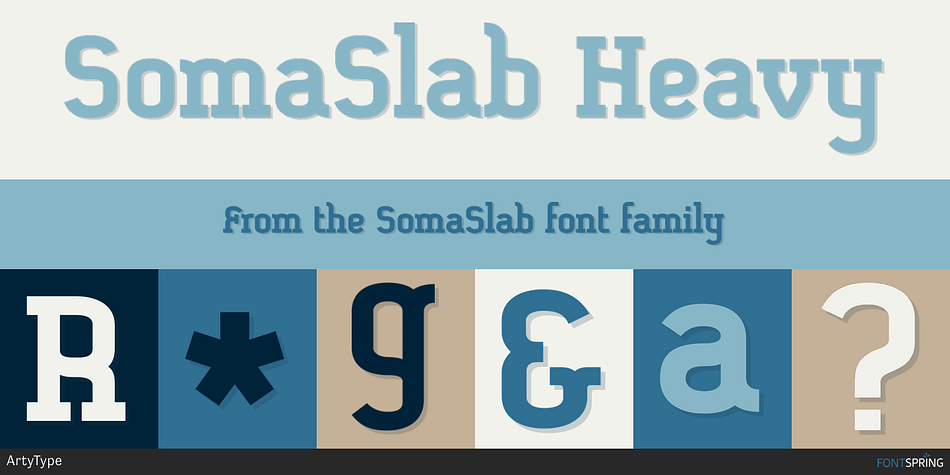
SomaSlab Heavy
SomaSlab is a slab serif font family. This typeface has eight styles and was published by ArtyType.
The ‘Somatype’ range has expanded further with this latest addition to the collection, titled SomaSlab. Although the basic letterforms are the same as in the generic Somatype family, the introduction of slab-serifs to appropriate characters has transformed the typeface into something new, creating a completely different styling in the process and striking a pleasing balance between classic & contemporary styles.
The fishtail and curved serifs on certain characters also introduces a unique quirkiness, making SomaSlab stand out alongside most classic slab serif fonts. Some alternative characters are available too, together with an extended Latin glyph set, allowing users a variable choice and great versatility for text settings.
SomaSlab comes in both Regular & Slanted styles, each in 4 practical weights, providing plenty of flexibility on any creative project.